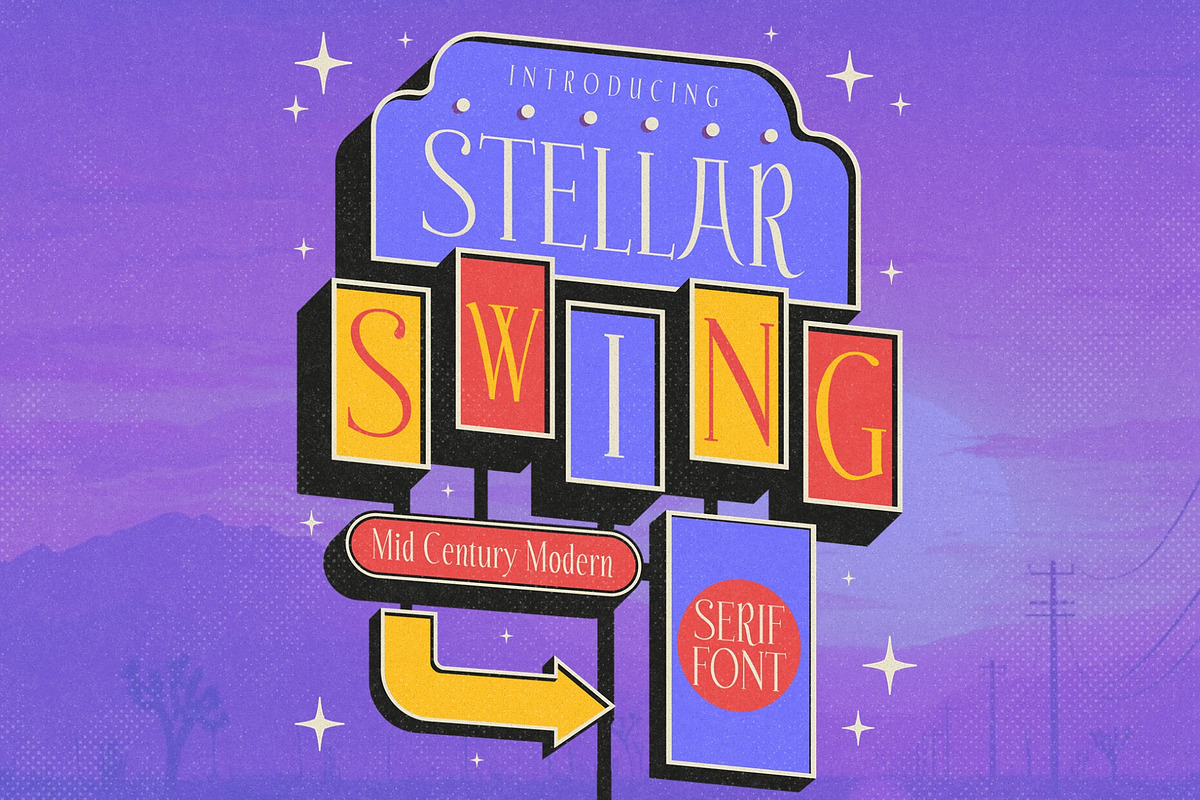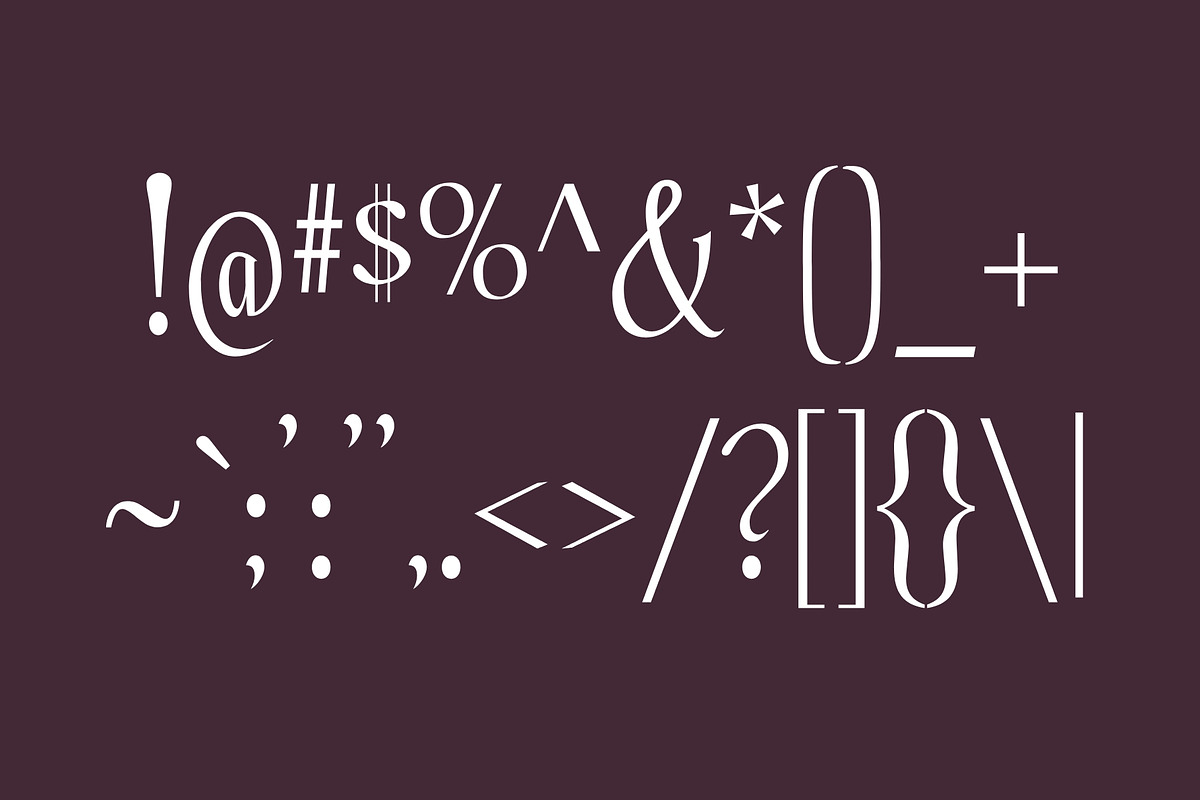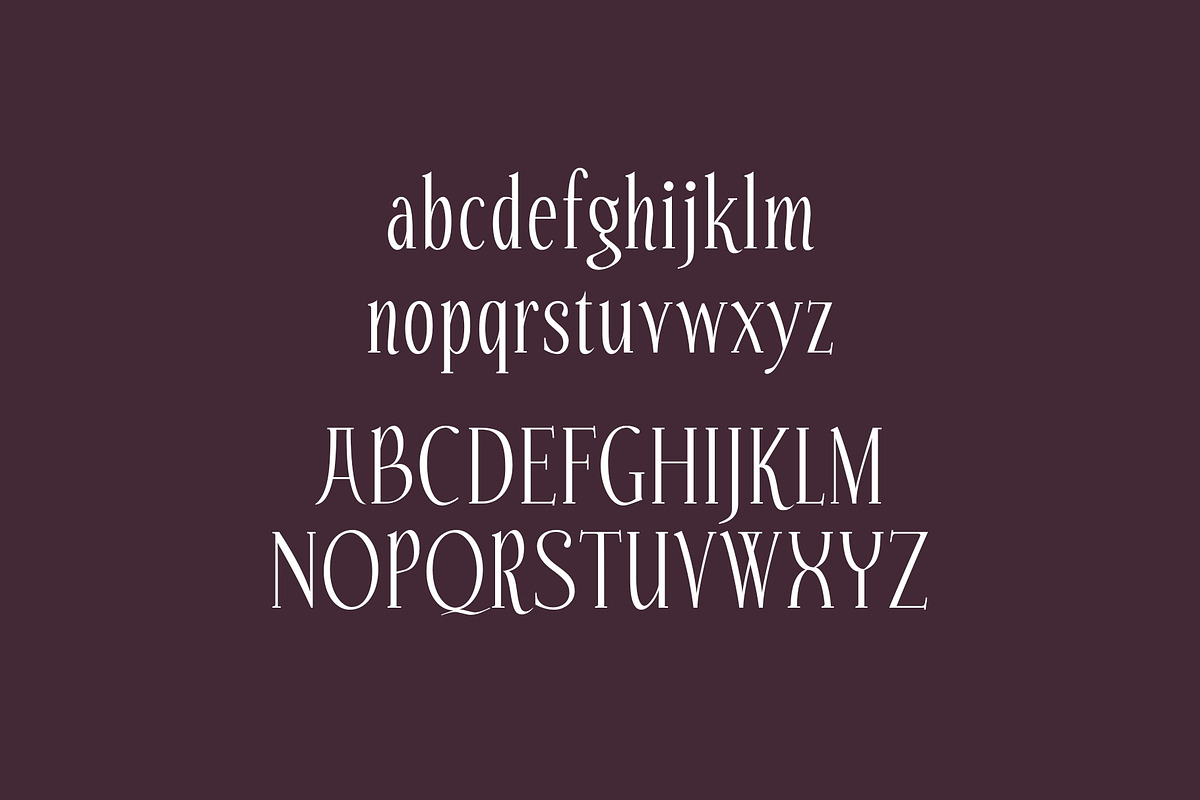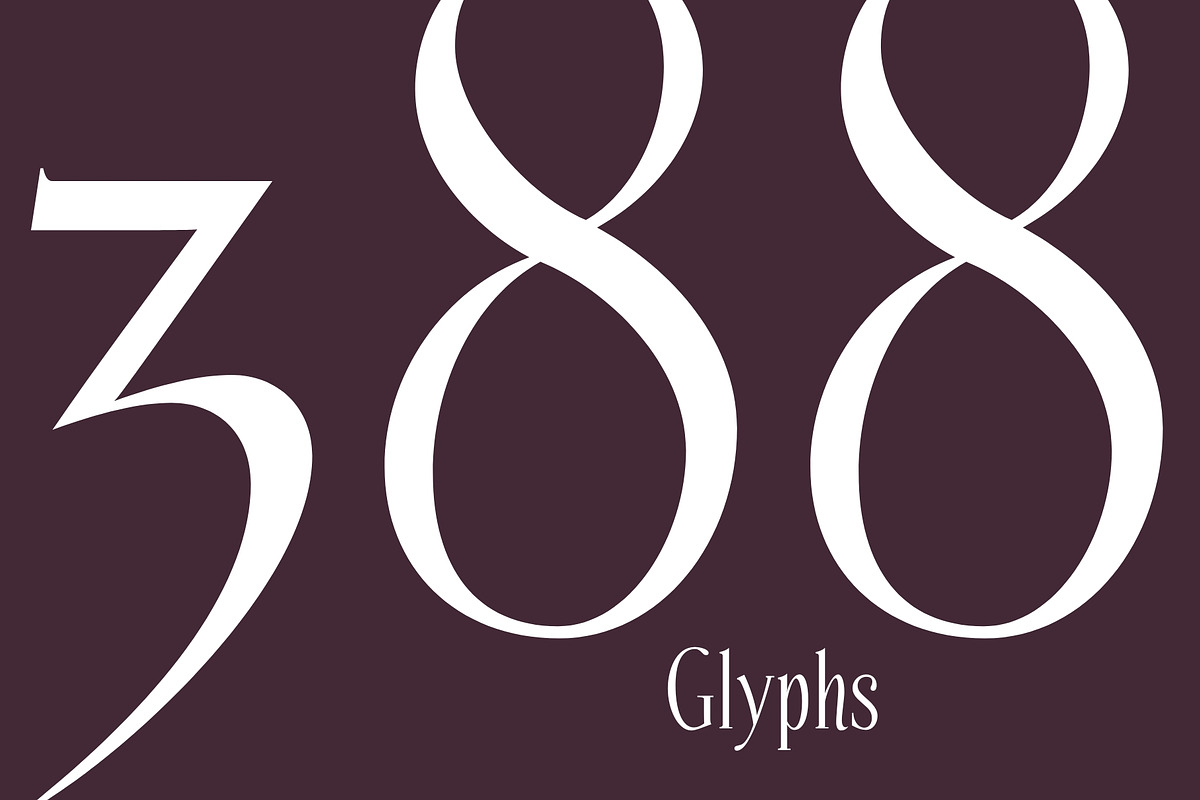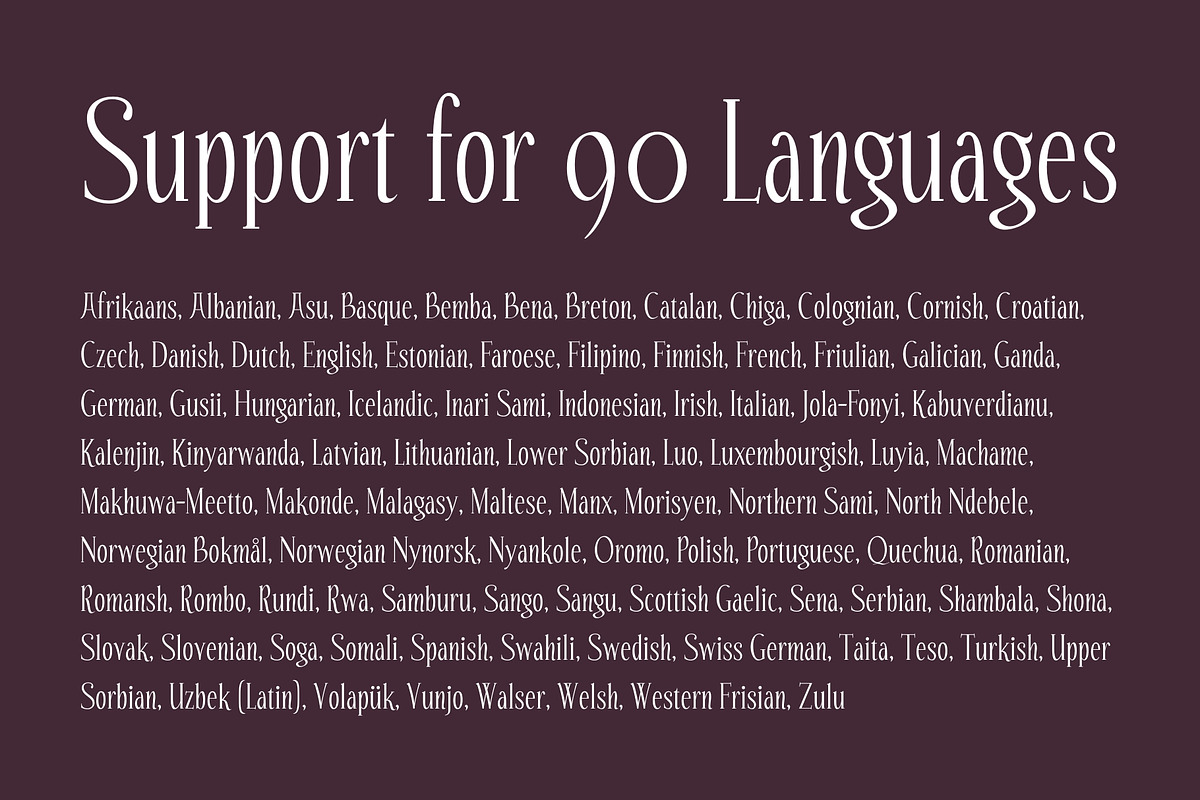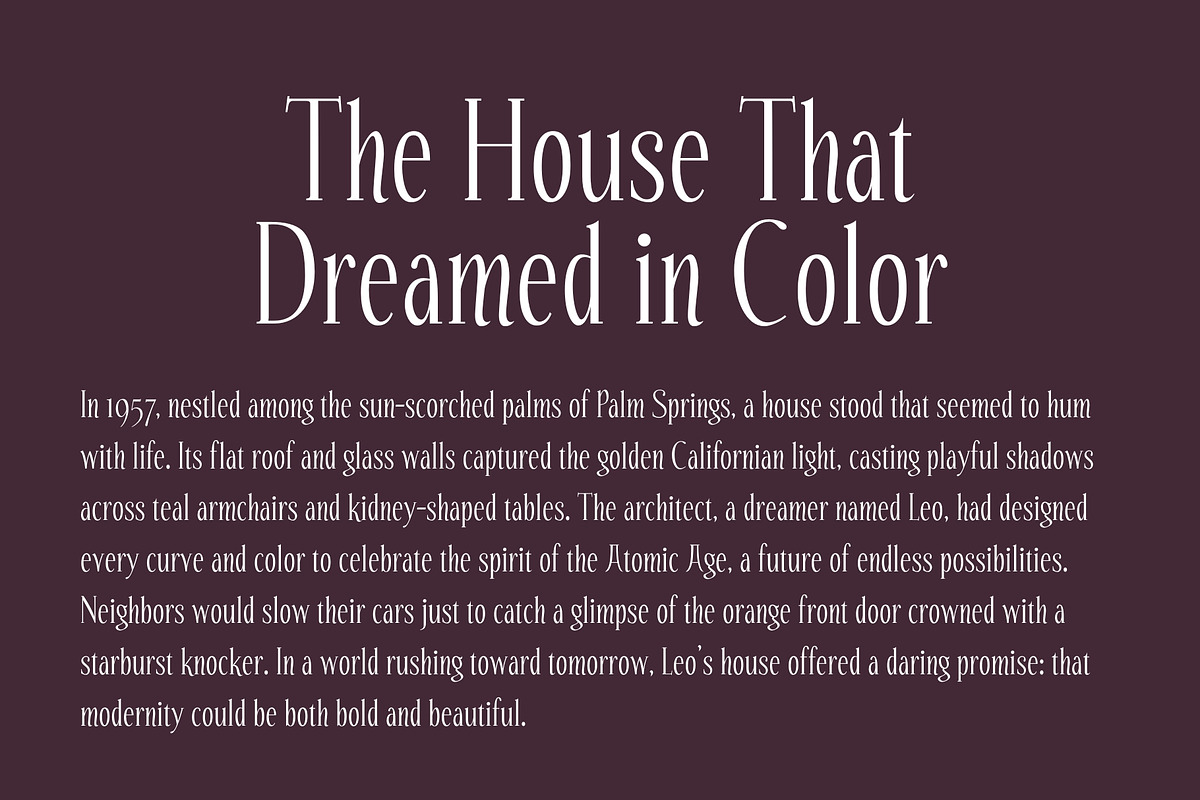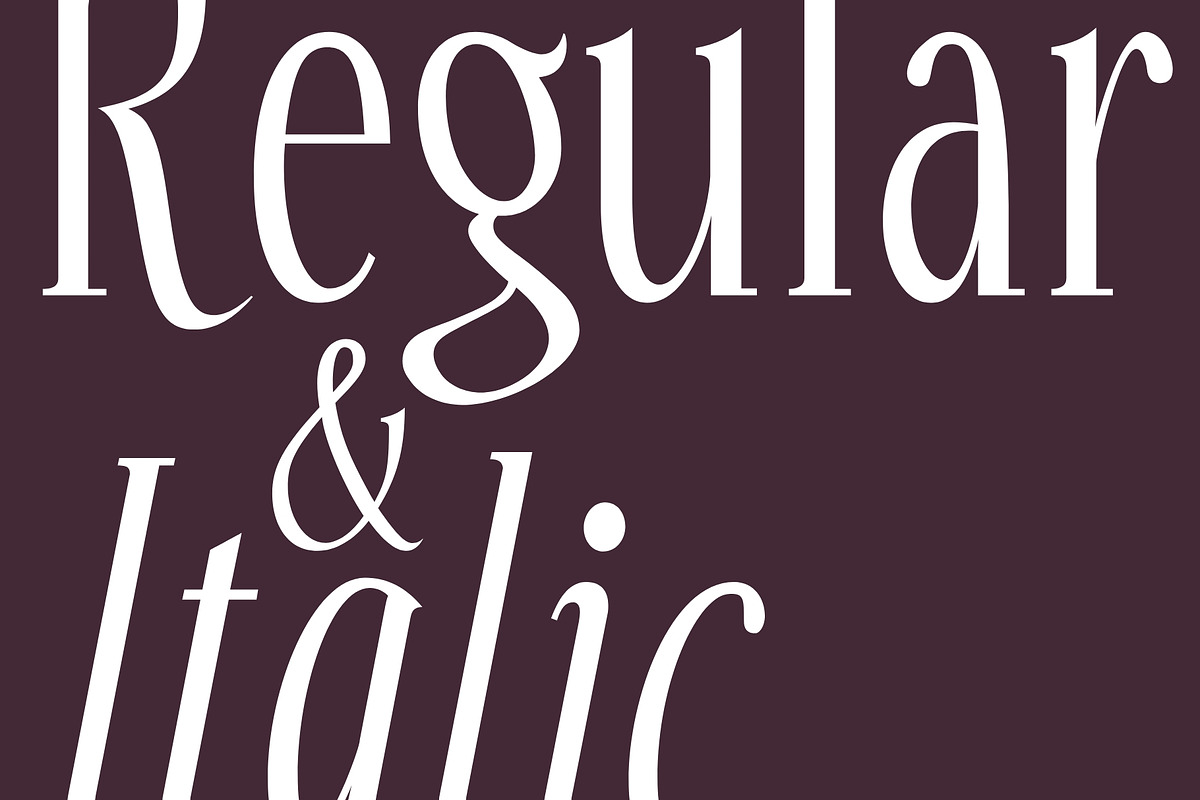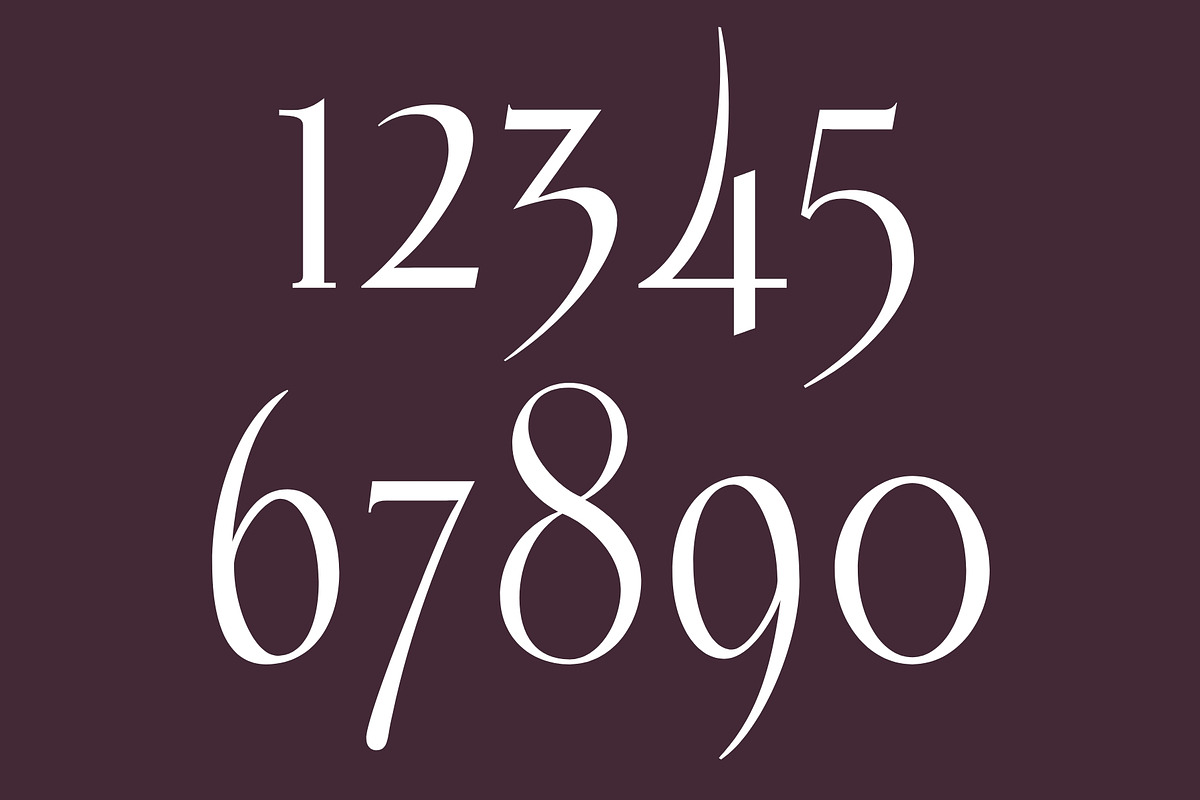
Stellar Swing - Mid Century Font
Step into the golden age of design with Stellar Swing, a classy and stylish serif typeface inspired by the glamour and geometry of the Mid-Century Modern era. With sleek curves, sharp serifs, and retro charm baked into every character, this font radiates elegance, confidence, and unmistakable vintage flair.
Whether you're crafting branding for a high-end lounge, designing chic packaging, or creating standout headlines, Stellar Swing delivers with poise. It’s effortlessly gorgeous, irresistibly chic, and designed to elevate any project with a touch of space-age sophistication and atomic-era cool.
Multilingual? You bet. With support for 90 languages, Stellar Swing ensures your message travels as far as your imagination.